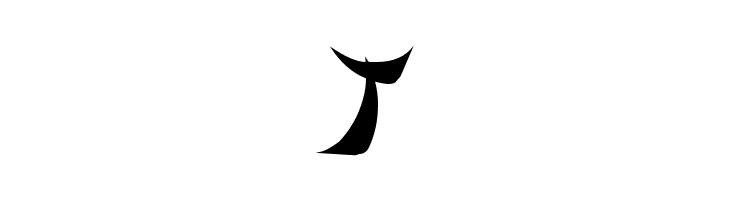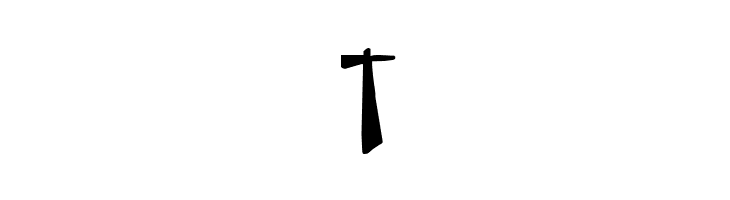
A bold, dramatic font with sharp, angular edges and dragon-like motifs.
A bold, 3D font with geometric shapes and shadow effects, perfect for impactful designs.
A playful, hand-drawn font with bold, irregular strokes.
A bold, dynamic font with sharp angles and a hand-drawn, brush-like appearance.
A bold, brushstroke font with a dynamic, calligraphic style.
A playful, handwritten font with dynamic strokes and a casual feel.